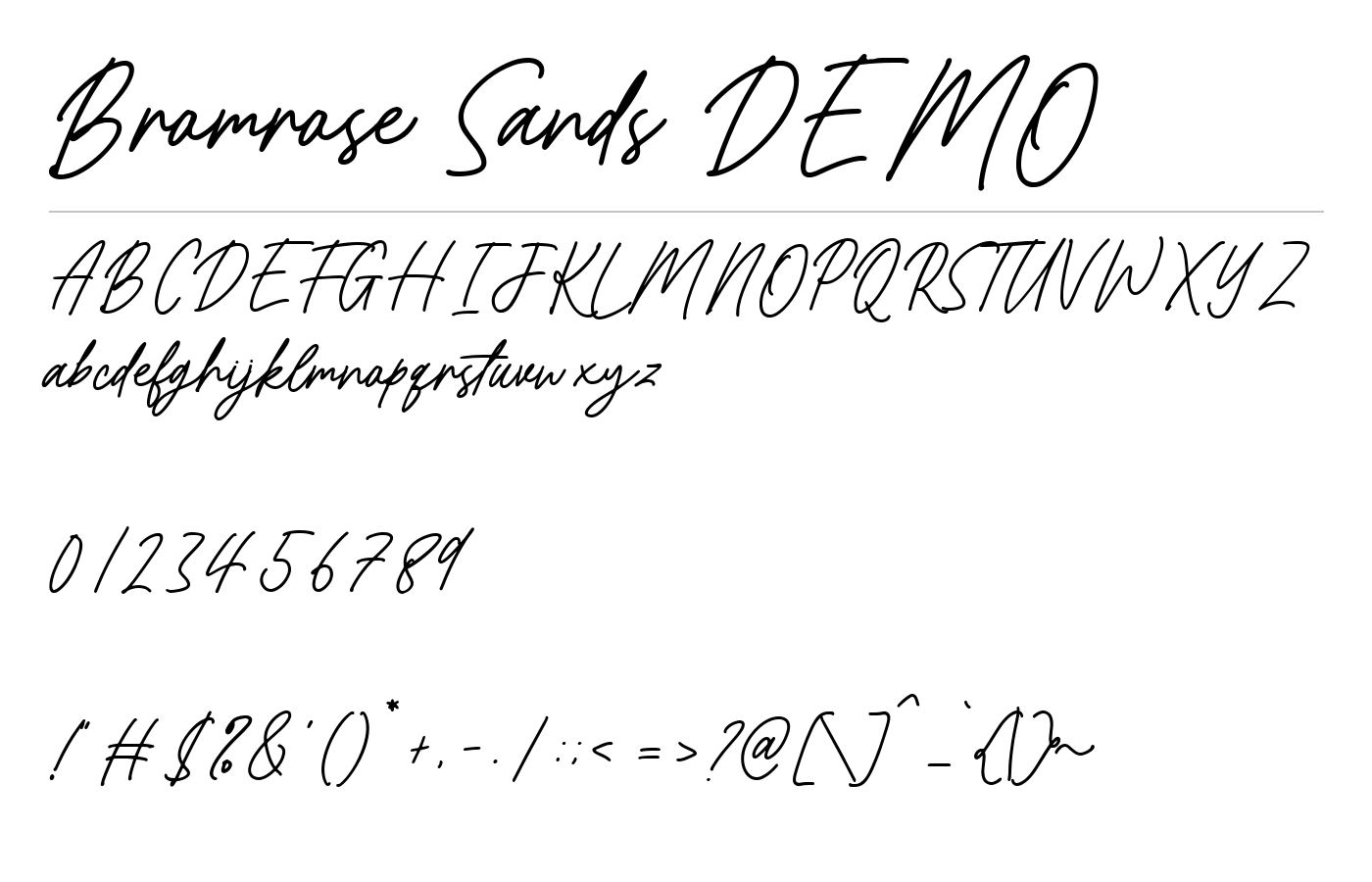
Bromrose Sands DEMO is a delicate, handwritten script font with a light weight and a casual, flowing style. Its tall, narrow letters and smooth, slightly varied strokes give it an elegant yet personal feel, making it perfect for creative branding, invitations, and lifestyle projects where a friendly, authentic touch is desired. This font works well in headlines or short texts that require a natural, stylish appearance.
Bromrose Sands DEMO Font
About Bromrose Sands DEMO Font
| Font family | Bromrose Sands DEMO Font |
| Designer | Gustian Agung Asprilla |